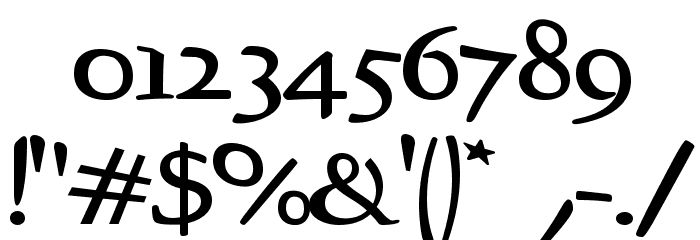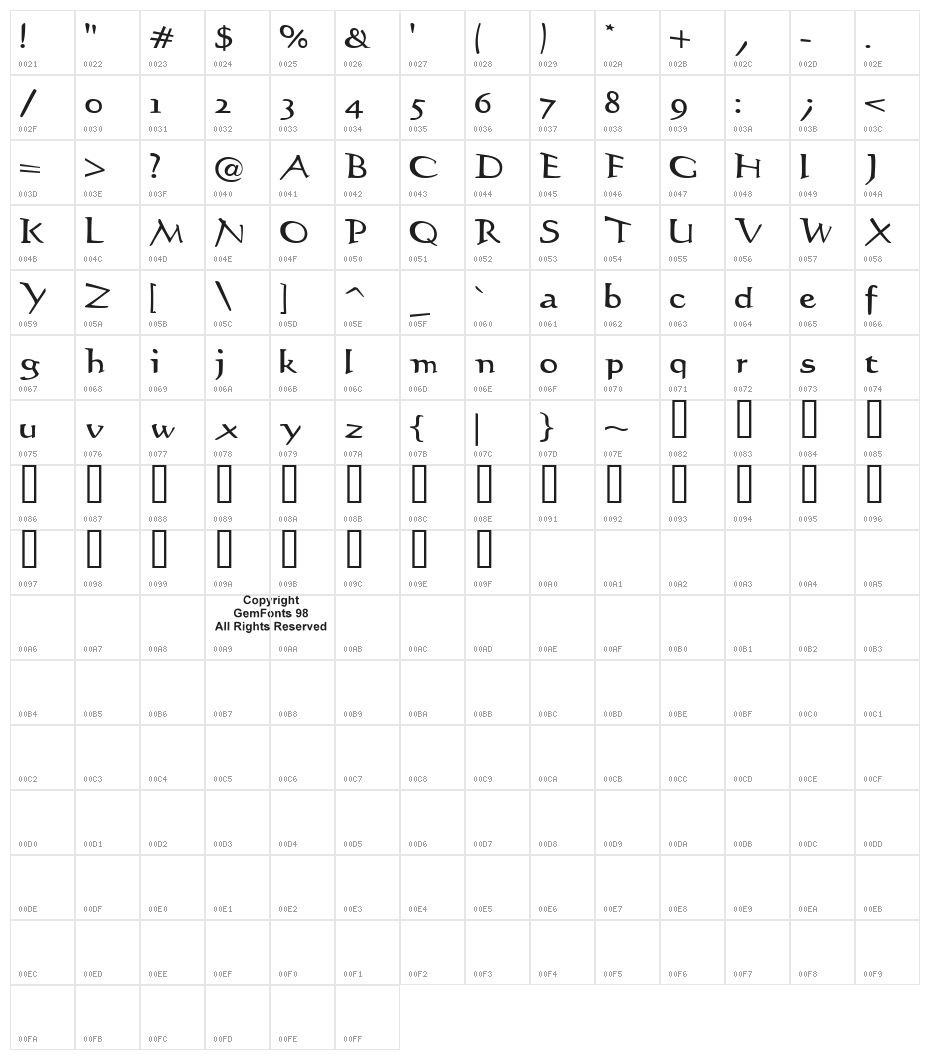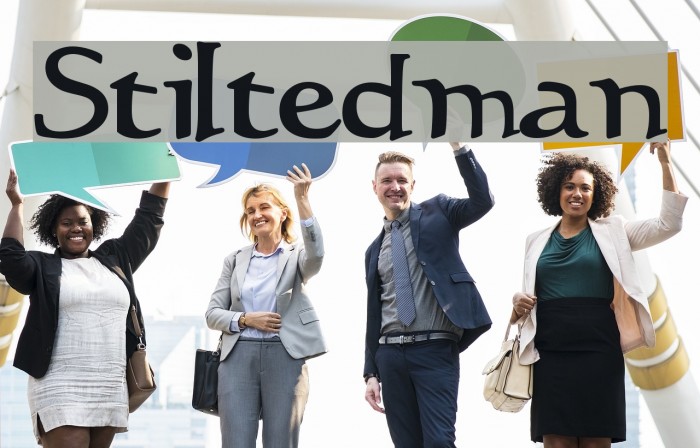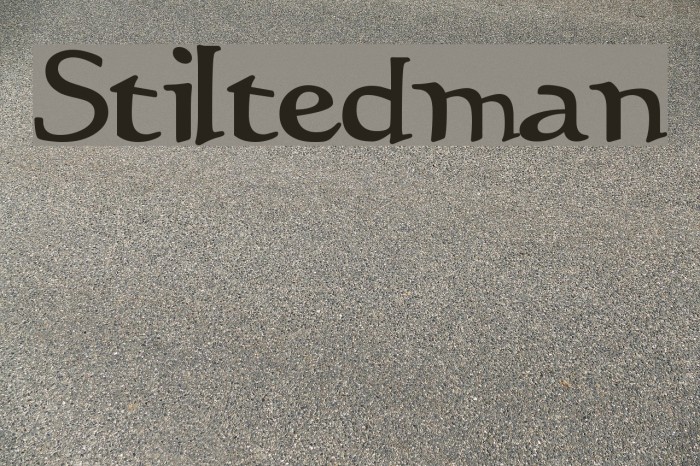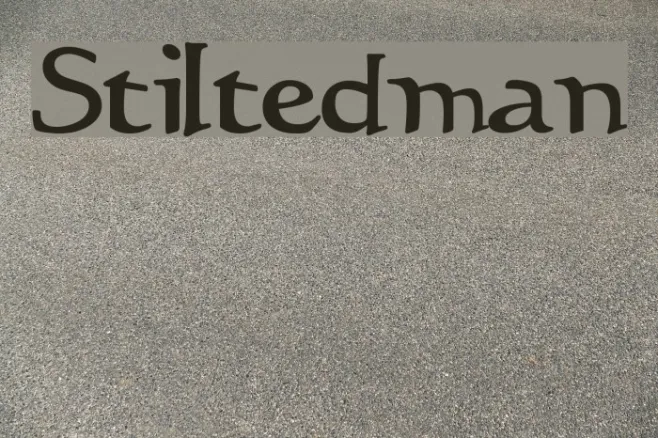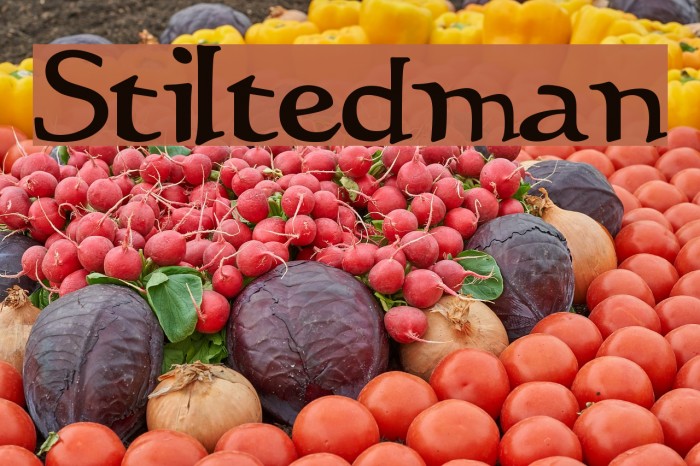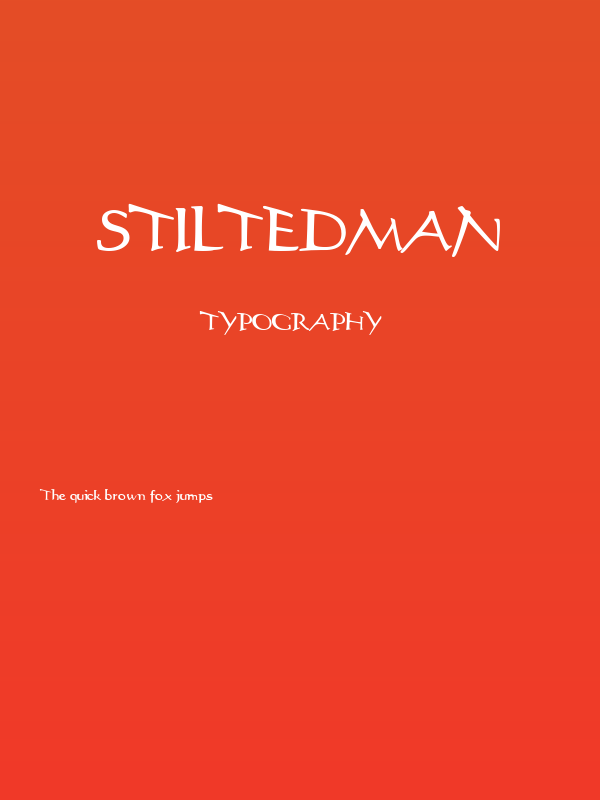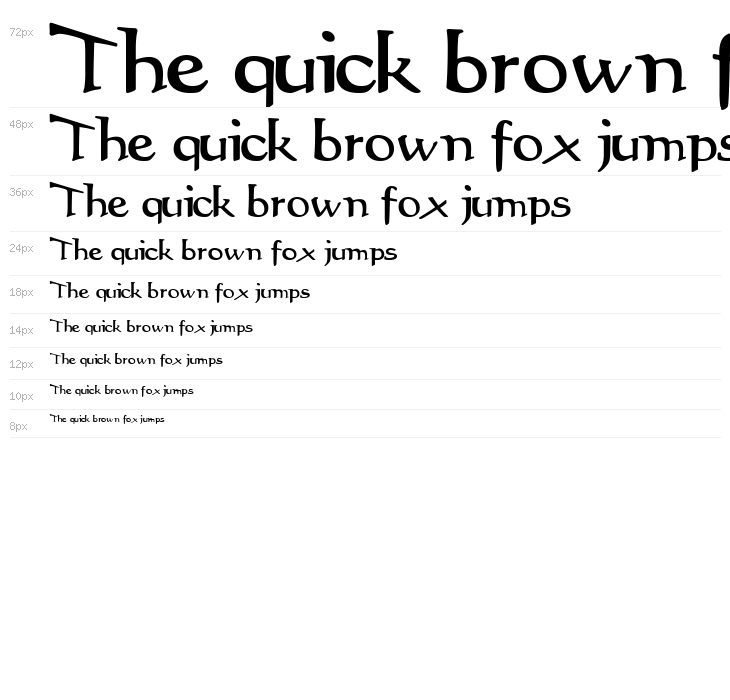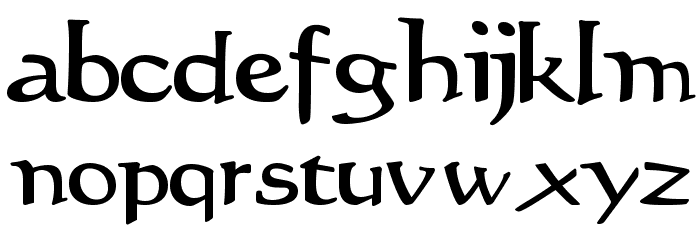
Stiltedman Font
Stiltedman Description
This font exhibits a unique and artistic flair, characterized by its irregular and playful strokes. The letters have a whimsical, hand-drawn quality, with varying line thickness that adds a dynamic and lively feel. The uppercase letters are bold and slightly tilted, giving an impression of movement and energy. The lowercase letters maintain this playful style, with some characters featuring exaggerated curves and angles. The numerals are equally distinctive, with a quirky, almost cartoonish appearance. Special characters follow the same whimsical design, making the font suitable for creative and informal projects.
| Overall Style | Artistic and playful |